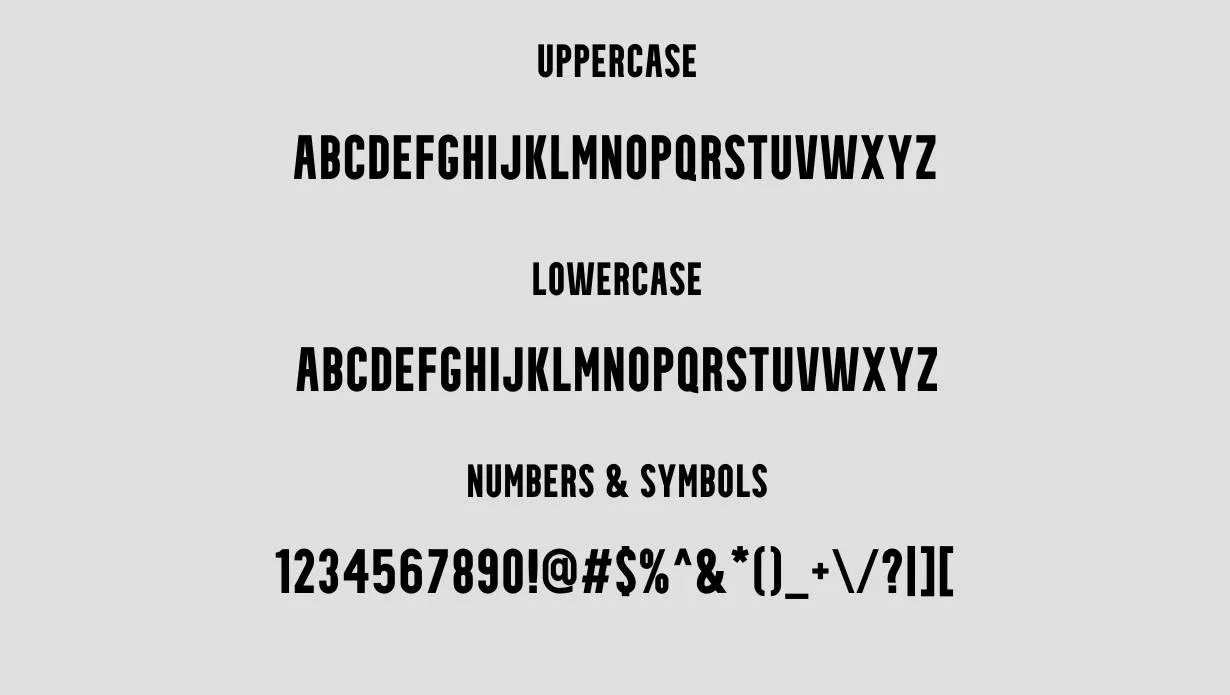
Theater Bold Sans Serif Font is a solid and impactful typeface, ideal for creating strong and attention-grabbing designs. It is designed by AdrianaJordanav and it belongs to Sans-Serif fonts. It’s perfect for projects that require a commanding font, such as theater posters, banners, or promotional materials.
This font includes a comprehensive set of characters, encompassing uppercase and lowercase letters, numerals, punctuation, and various special characters. Transform your design project into a captivating Splatter masterpiece through the inclusion of this typeface. Utilize the linik sans font independently or as a harmonious pairing option alongside other fonts. Whether you’re using Canva or Adobe, Theater Bold Sans Serif Font ensures your text is bold and visually arresting.
Theater Bold Sans Serif Font
| Name | Theater Bold Sans Serif Font |
| Designer | AdrianaJordanav |